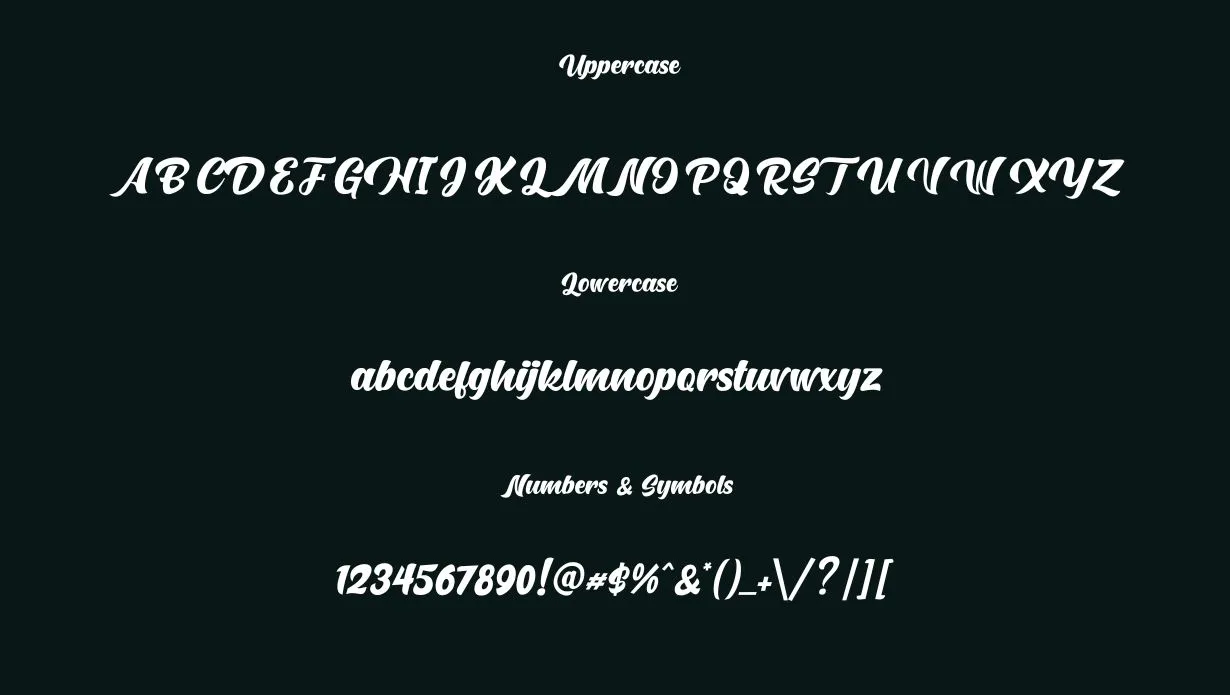
The design of Hunters Font draws inspiration from the outdoors and hunting, making it a popular choice for projects involving wildlife, hunting equipment, and designs that celebrate nature.
It adds a touch of rugged charm and a sense of adventure to your design work.
Hunters Font Family
| Name | Hunters Font |
| Designer | Greg Nicholls |